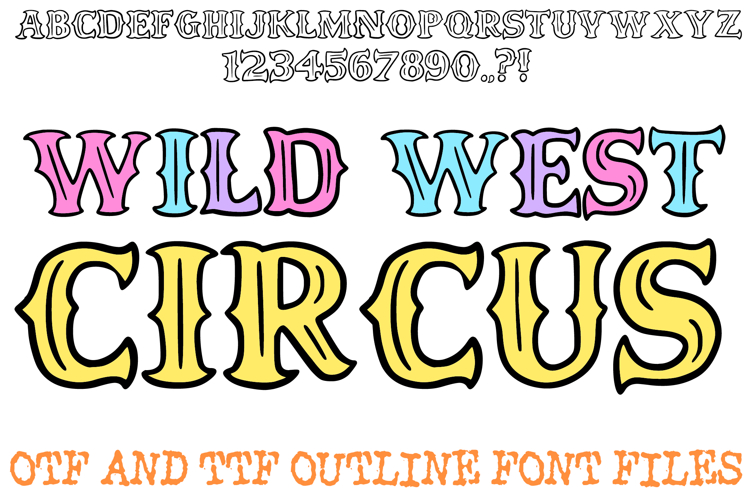
Wild West Circus Font Carnival Lettering Cartoon Western ABC
Step right up and head out west with the Wild West Circus Font! This hand-drawn display alphabet expertly blends the theatrical flair of a vintage circus with the rugged charm of a frontier saloon. Featuring bold, ornate letterforms with decorative notches and intricate internal outlines, it’s the ultimate choice for high-impact posters, retro branding, and any project that needs a touch of old-world character.
The unique "showman" aesthetic of each character ensures your headlines grab attention while maintaining a classic, artisan feel. Whether you're designing for a themed festival, traditional tattoo-style apparel, or rustic event signage, the Wild West Circus Font delivers a professional, timeless look that stands out.
Ornate Notched Details: Every character features decorative points and "notches" that provide a grand, vintage silhouette.
Dimensional Internal Outlines: Fine inner lines add depth and texture, mimicking the look of classic fairground and saloon signage.
High-Contrast Boldness: The heavy weight and sharp details ensure maximum legibility for headlines and logos.